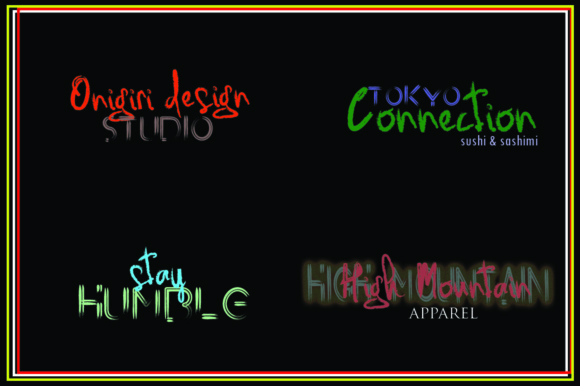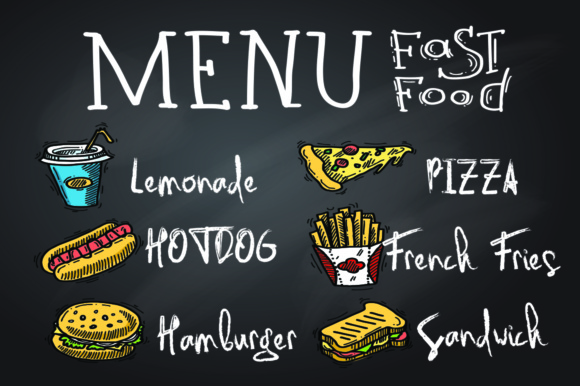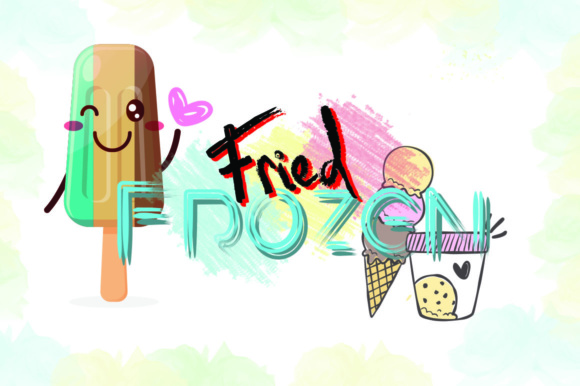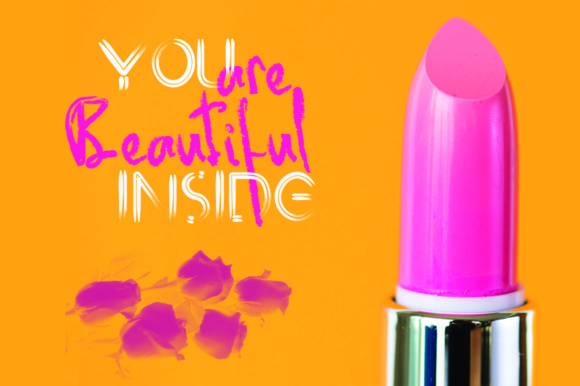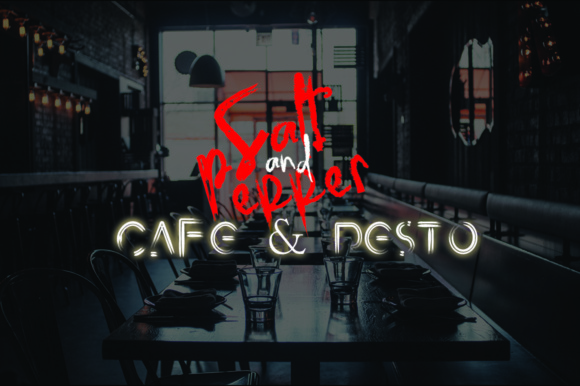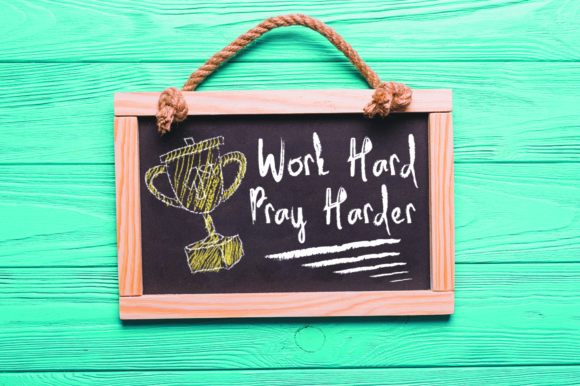
Introduction to Final Countdown Font
Have you ever been working on a creative project, pouring your heart and soul into it, only to realize that it’s missing that one special element to make it truly stand out? For designers, finding the perfect font can be a game-changer, and that’s exactly what we’re about to explore – the Final Countdown Font.
Imagine having a design resource that not only adds a touch of sophistication but also a dash of playfulness to your work. The Final Countdown Font duo is a modern, stylish combination of two brush fonts, one with a signature style and the other with a sans serif style, offering endless possibilities for creative expression.
With its unique texture and high-quality design, the Final Countdown Font is a valuable asset for designers looking to elevate their work and make a lasting impression. And the best part? It’s available for free download, complete with a transparent background, making it easy to integrate into any design project.
Key Features of Final Countdown Font
- Unique, eye-catching design ideal for creative projects, presentations, and marketing materials.
- Perfect for creating a sense of urgency and excitement in your designs, making it ideal for countdown timers, promotions, and events.
Honest Review: Final Countdown Font
I recently had the chance to work with the Final Countdown Font, and I must say it’s a great addition to any design resource. This font is perfect for creative projects that require a touch of elegance and sophistication.
Here are some things that work well with this font: ✨ Unique design aesthetic that sets it apart from other fonts in its class ✨ High-quality vector format that ensures crisp and clear lines ✨ Transparent background that makes it easy to use in various design scenarios ✨ Free download option that’s perfect for designers on a budget
- Wide range of applications, from print to digital media
- Perfect for creating a sense of urgency or excitement in your design
- Works well in combination with other fonts to create a unique visual identity
One limitation I noticed is that the font may not be suitable for very small text sizes, as the lines can become blurry. However, this is a minor issue and can be easily avoided by adjusting the font size.
Overall, I’m impressed with the Final Countdown Font and would definitely recommend it to designers looking for a high-quality, unique font for their creative project.
The Final Countdown Font is a unique and stylish design resource that can elevate any creative project. With a transparent background and high-quality design, this font is perfect for adding a touch of sophistication to your work.
Tips for Getting the Most Out of Final Countdown Font
For best results, use the Final Countdown Font in bold or italic styles to add emphasis to your text. You can also pair it with other fonts to create a unique and eye-catching design.
The Final Countdown Font is perfect for:
- Creating eye-catching headings and titles
- Adding a touch of sophistication to your website or blog
- Designing promotional materials such as flyers and brochures